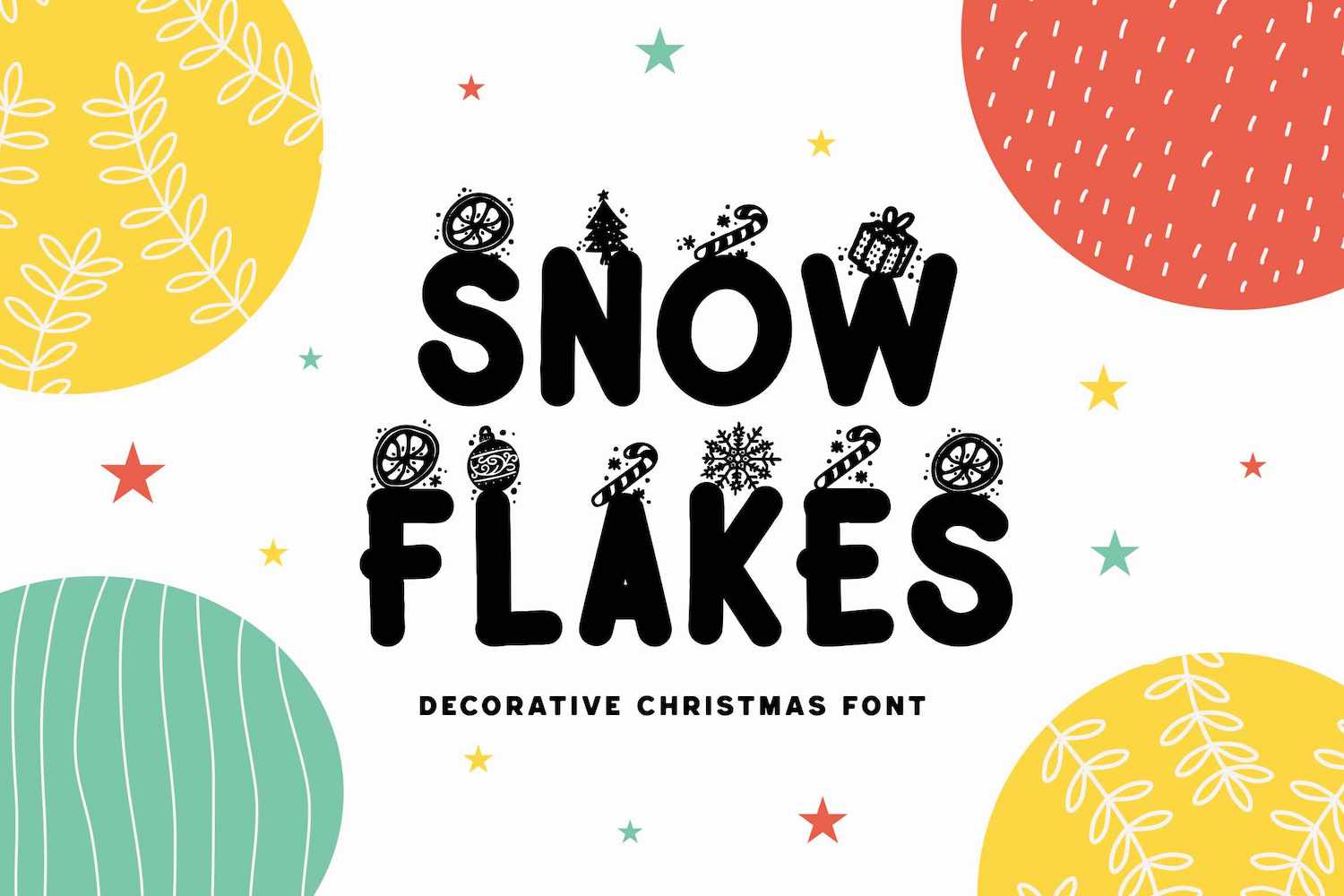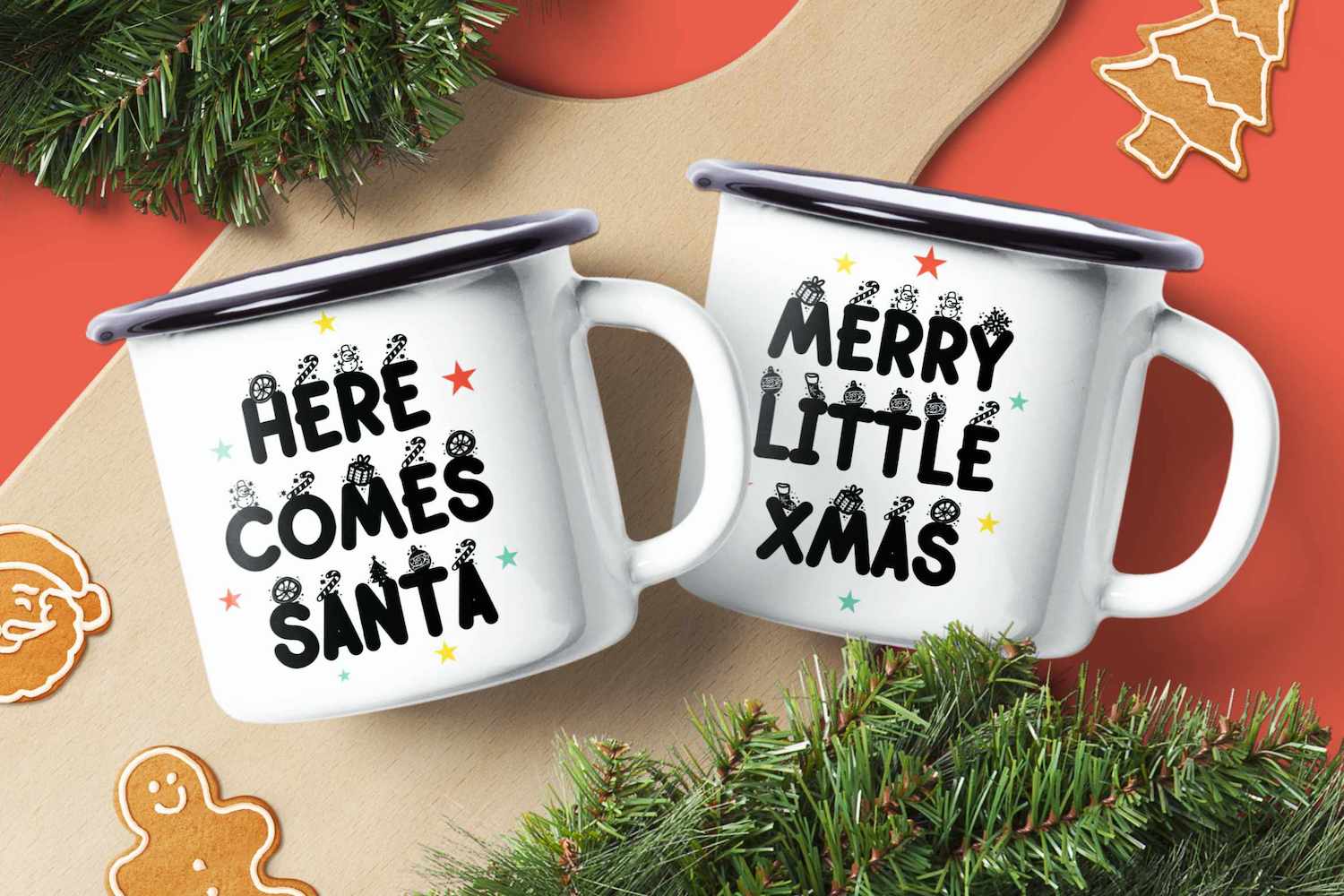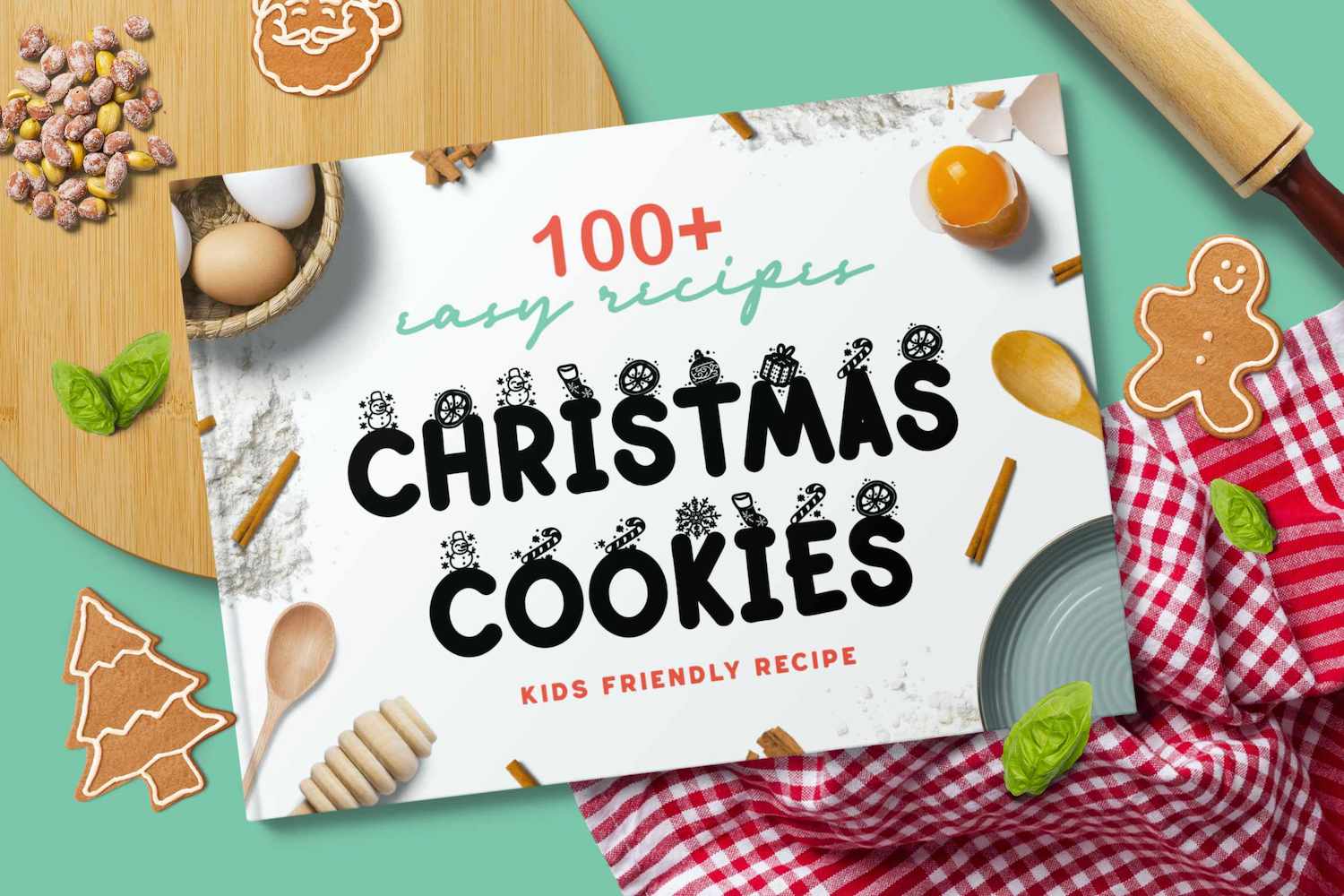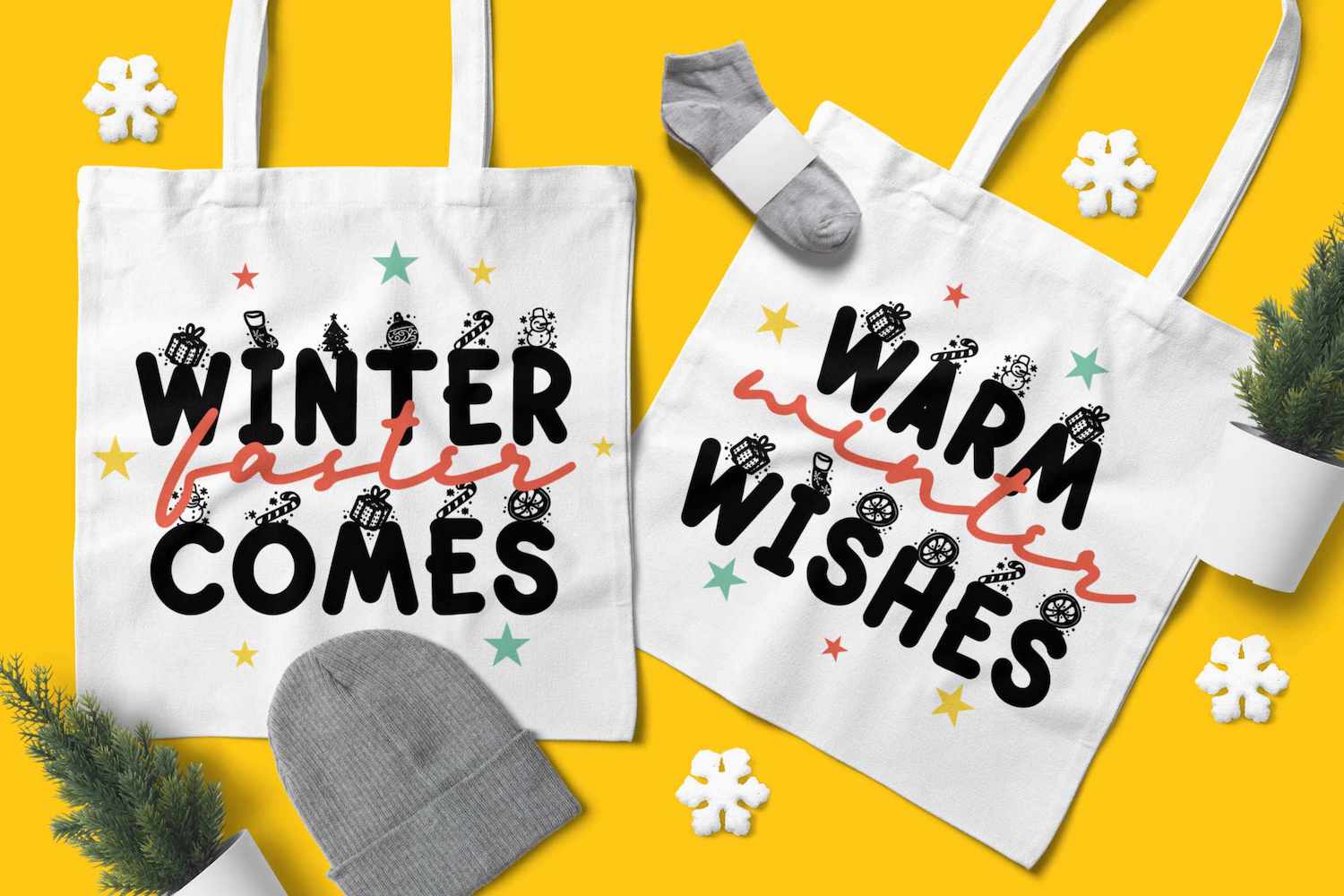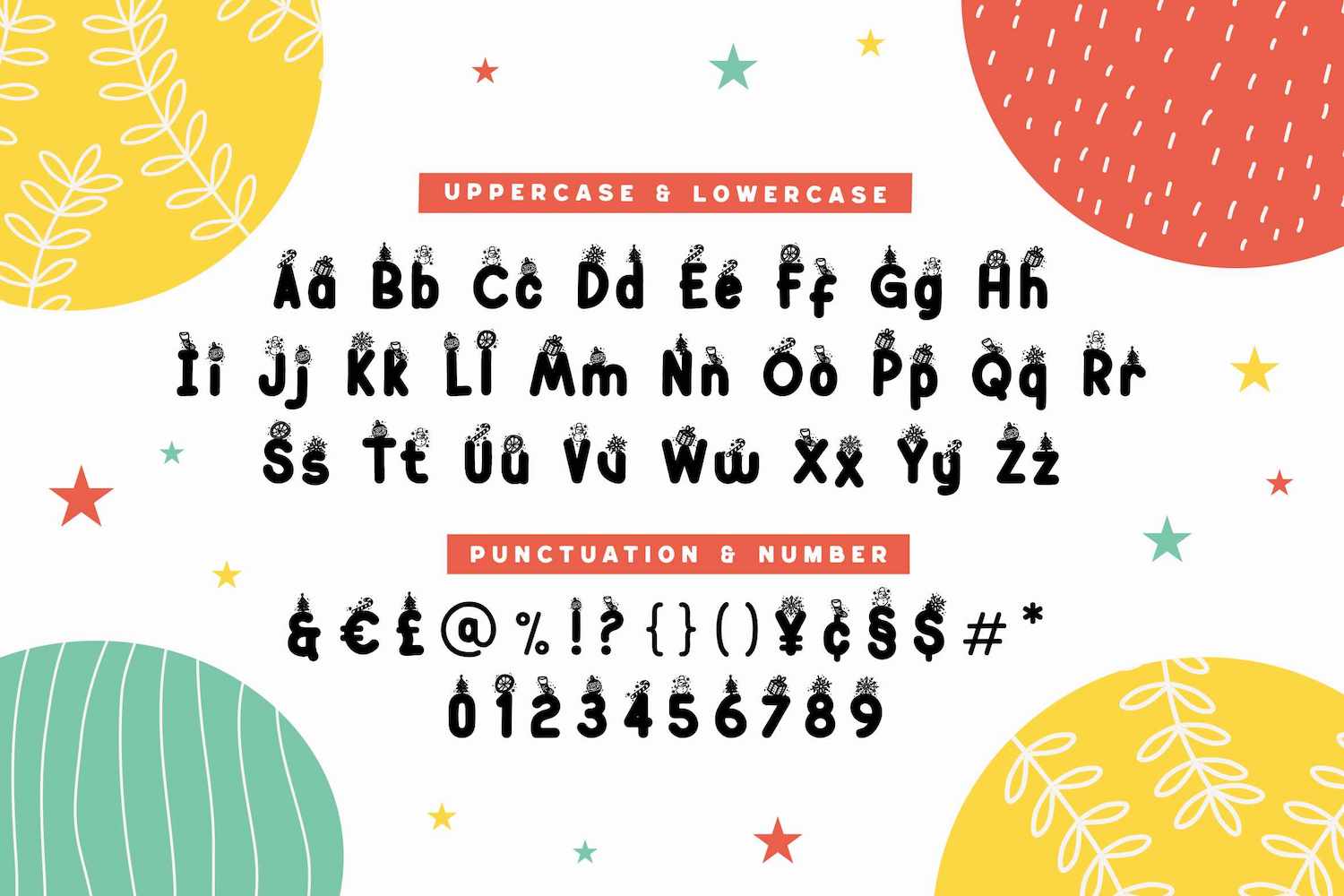
Snow Flakes is a playful decorative Christmas font filled with holiday cheer and festive charm. Each character in this font features whimsical Christmas elements such as candy canes, snowflakes, ornaments, and gifts, making it perfect for projects that call for a joyful and celebratory vibe. With its bold, rounded letterforms, this font ensures readability while still adding a delightful holiday twist through its creative illustrations atop each character.
Perfect for Christmas cards, party invitations, children’s books, gift packaging, or winter-themed branding, Snow Flakes brings the magic of the season to life. Whether you’re crafting mug designs, tote bags, or promotional graphics, this font adds a touch of holiday spirit to every word. It supports both uppercase and lowercase letters, numerals, and basic punctuation. Giving you everything you need for merry-making designs!